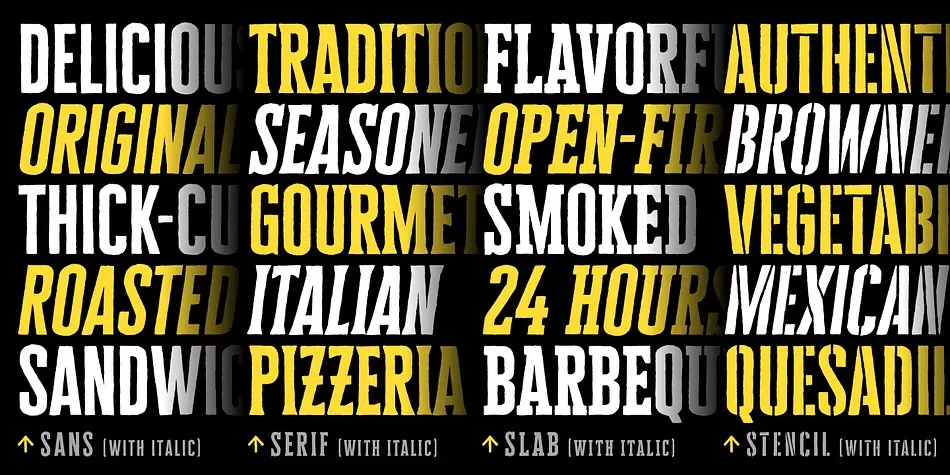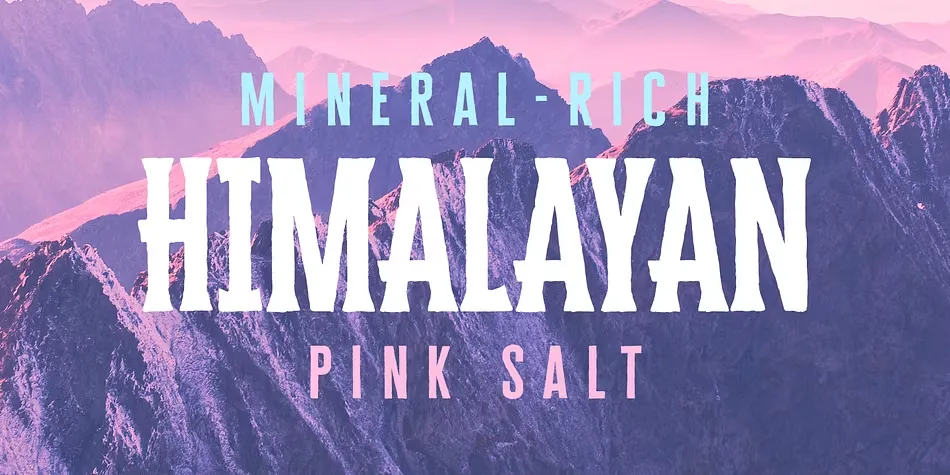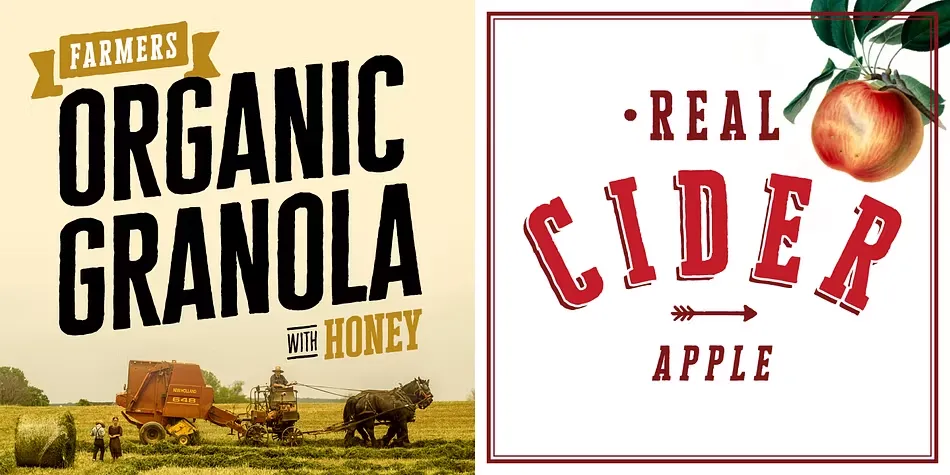
Cheddar Gothic Font
About Cheddar Gothic Font
I’m a typographer and graphic designer who enjoys exploring typefaces that bring fresh energy to projects. Recently, I found the Cheddar Gothic Font while working on a brand design. Its hand-drawn look instantly stood out to me. I used it on a packaging project and later on a poster where I needed a rugged yet readable style.
Both turned out better than I expected, with headlines that grabbed attention and details that looked authentic. Writing this review lets me share my experience using this typeface and why I think it’s worth considering if you want a mix of style and strength.
Cheddar Gothic Font and Its Designer
The Cheddar Gothic Font was designed by Adam Ladd, a designer known for creative, thoughtfully hand-drawn typefaces. Published as a full font family, it offers eight styles that include Sans, Serif, Slab, and Stencil. Each style comes with italics and a set of 92 matching catchwords and icons. This variety makes the font family incredibly versatile for different types of design.
Adam Ladd’s design process is evident in Cheddar Gothic. The family is rugged and structured yet maintains readability across small sizes and large formats. When you use it on billboards, magazine headlines, or packaging, the handmade character becomes clear. On smaller designs like labels or t-shirts, the steady forms ensure balance and clarity.
The typeface was built as an all caps family. By switching between uppercase and lowercase, you can access alternates. Lowercase letters provide a classic condensed look, while uppercase letters introduce extended crossbars and terminals for extra personality. This mix and match approach allows designers to explore creative outcomes without leaving the family.
Cheddar Gothic is more than just another font. It is a complete tool for creating variety and consistency across branding, posters, urban campaigns, gaming merchandise, and even artisanal food packaging. With Adam Ladd’s thoughtful touch, this font manages to stay readable while offering unique styling options.
Features of Cheddar Gothic Font
Cheddar Gothic comes with several features that make it stand out as a type family. Its eight styles offer a range of looks, from sans and serif to slab and stencil. Italics are included for each style, making it easy to add energy to designs. The font also includes 92 matching catchwords and icons that bring quick variety to projects. These can be used in posters, labels, or even social media branding to highlight key text.
The structure of the typeface ensures versatility. It was designed with a mid-range weight, so it avoids looking too light or too bold. This balance makes it suitable for both small sizes like magazine layouts and larger uses such as billboards or concert posters. The form remains evident and readable across different applications, whether on desktop, web, or print.
A unique detail is the option to switch between upper and lowercase for alternates. Designers can use lowercase for a condensed look or uppercase for extended crossbars and terminals. This flexibility allows quick customization within the same font family. The diverse styling gives room to explore without stepping outside the collection.
Cheddar Gothic was thoughtfully hand-drawn, which gives it a vintage yet modern feel. It blends artisanal character with professional usability, making it appropriate for both creative and corporate projects. From wanderlust travel campaigns to logos for large companies, this font family adapts with ease.
The Cheddar Gothic Font Free Download can be used across a wide variety of projects. Its rugged and hand-drawn style makes it suitable for packaging, especially artisanal food and beverage brands. Logos created with Cheddar Gothic feel strong and distinctive, giving brands a recognizable identity.
In advertising, the typeface shines in urban campaigns, billboards, and concert posters. Its structure holds up at large sizes, ensuring details are still evident. Magazine headlines and smaller text weights also work well, showing its flexibility for both bold and subtle uses.
The font family is ideal for clothing and merchandise, such as t-shirts, gaming products, or lifestyle goods. The catchwords and icons included in the package add interest, allowing designers to quickly highlight messages or create unique stamps. On digital platforms, it translates well to web and social media branding, maintaining readability and character even on mobile screens.
Cheddar Gothic’s design allows for mix and match usage. Designers can pair stencil with serif, or slab with sans, to create contrast while keeping consistency. This makes it a reliable option for diverse projects, whether they lean toward vintage, classic, or modern styling. For creative campaigns or corporate branding, it remains readable, bold, and versatile.